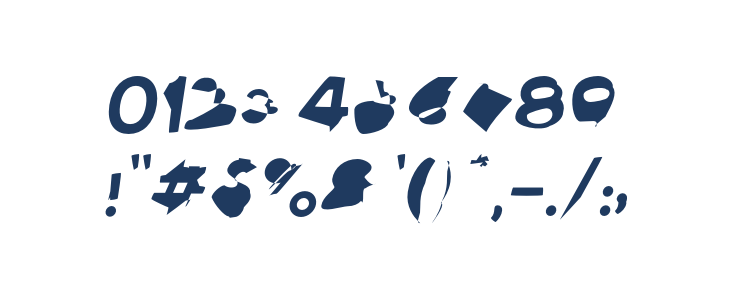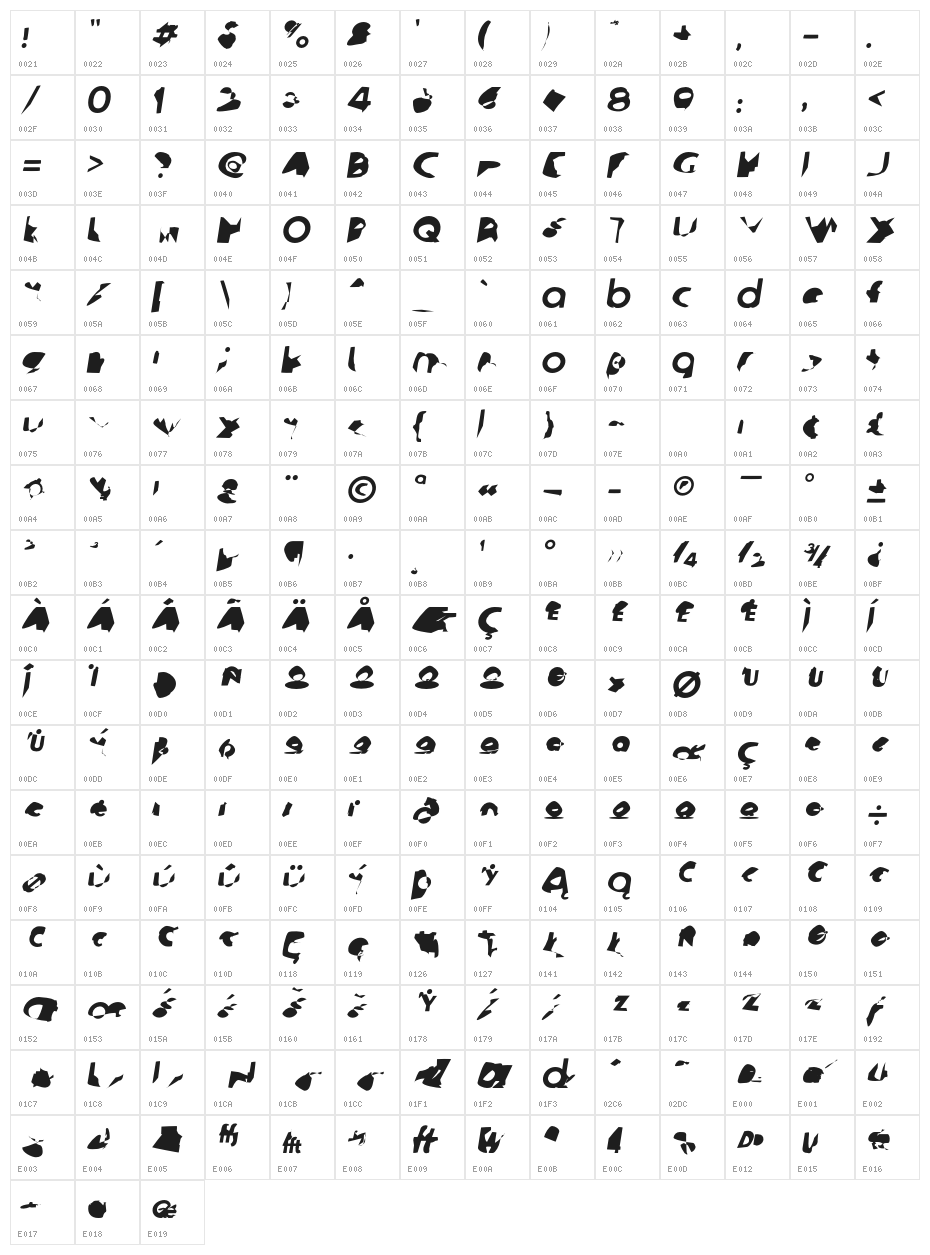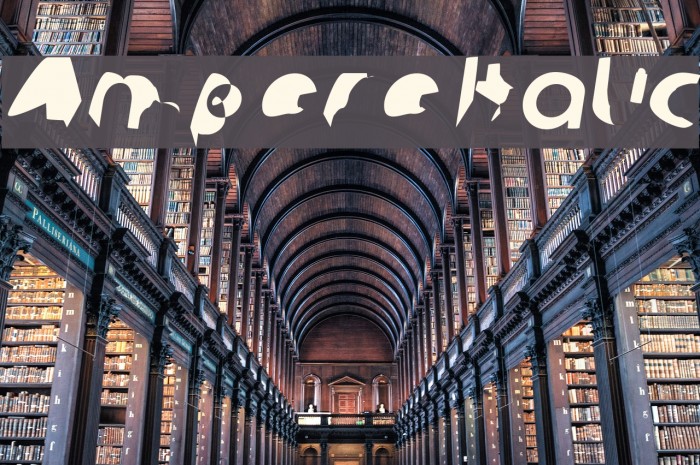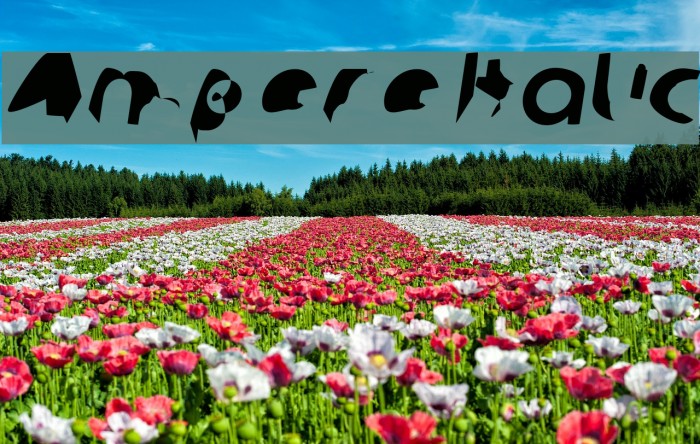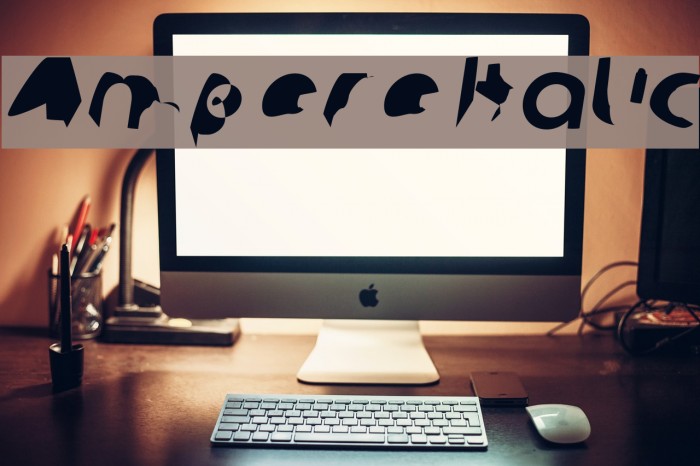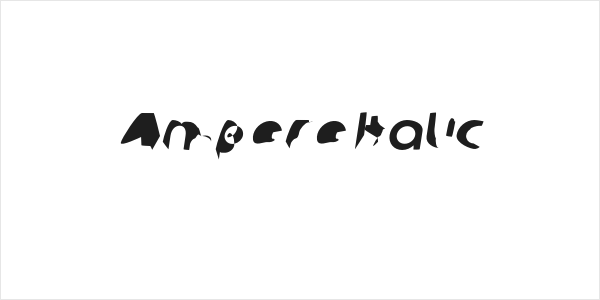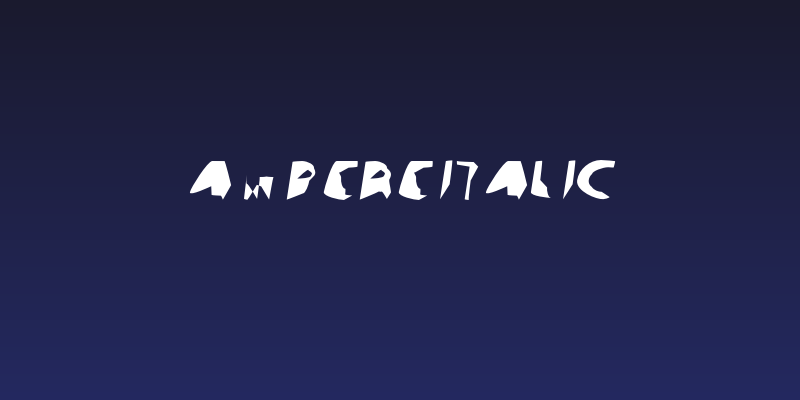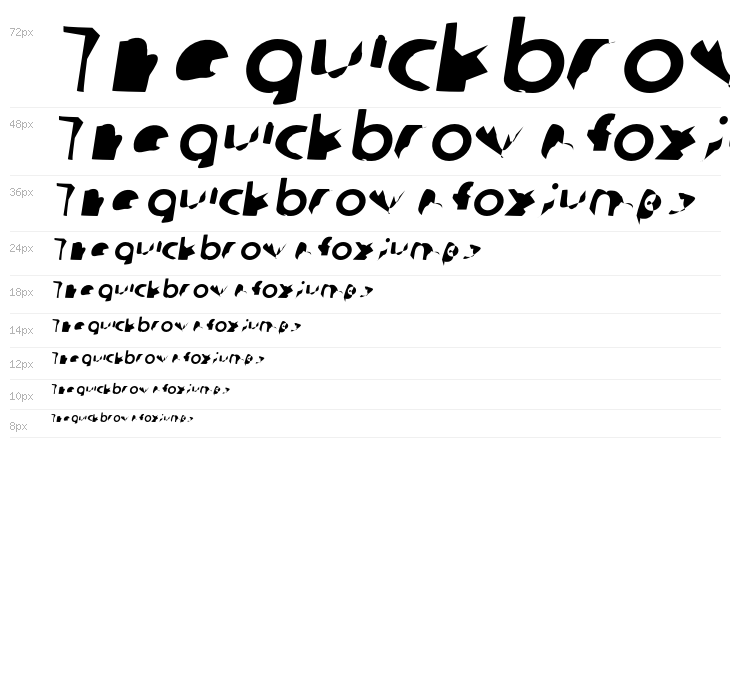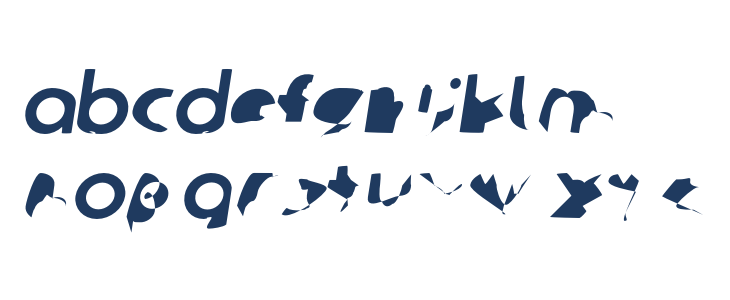
Ampere Italic Font
Ampere Italic Description
This font features a highly stylized and fragmented design, with each character appearing as if it has been shattered or sliced. The uppercase and lowercase letters maintain a consistent angularity, giving the font a dynamic and edgy appearance. The numbers and special characters follow the same fragmented style, ensuring uniformity across all glyphs. This font's unique aesthetic makes it stand out, ideal for projects that require a bold and unconventional look.
| Use Case | Logos, Headlines, Artistic designs |
| Proposed Projects | Ideal for modern art projects, edgy branding, album covers, and experimental design work. |